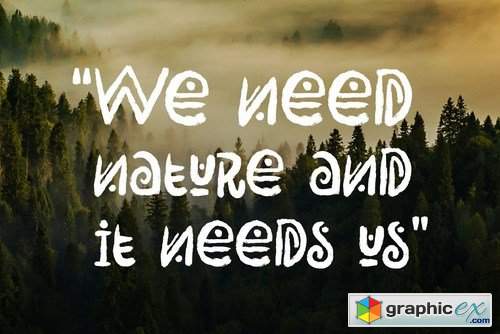
Rimba Andalas
Introducing Rimba Andalas, a playful ethnic font with extra ornaments. This experimental font inspired by the shapes of tree branches and combined with rough strokes such as ancient symbols found inscribed in caves. Perfect for the natural theme, folk, tribal, children, adventures, and social movement.